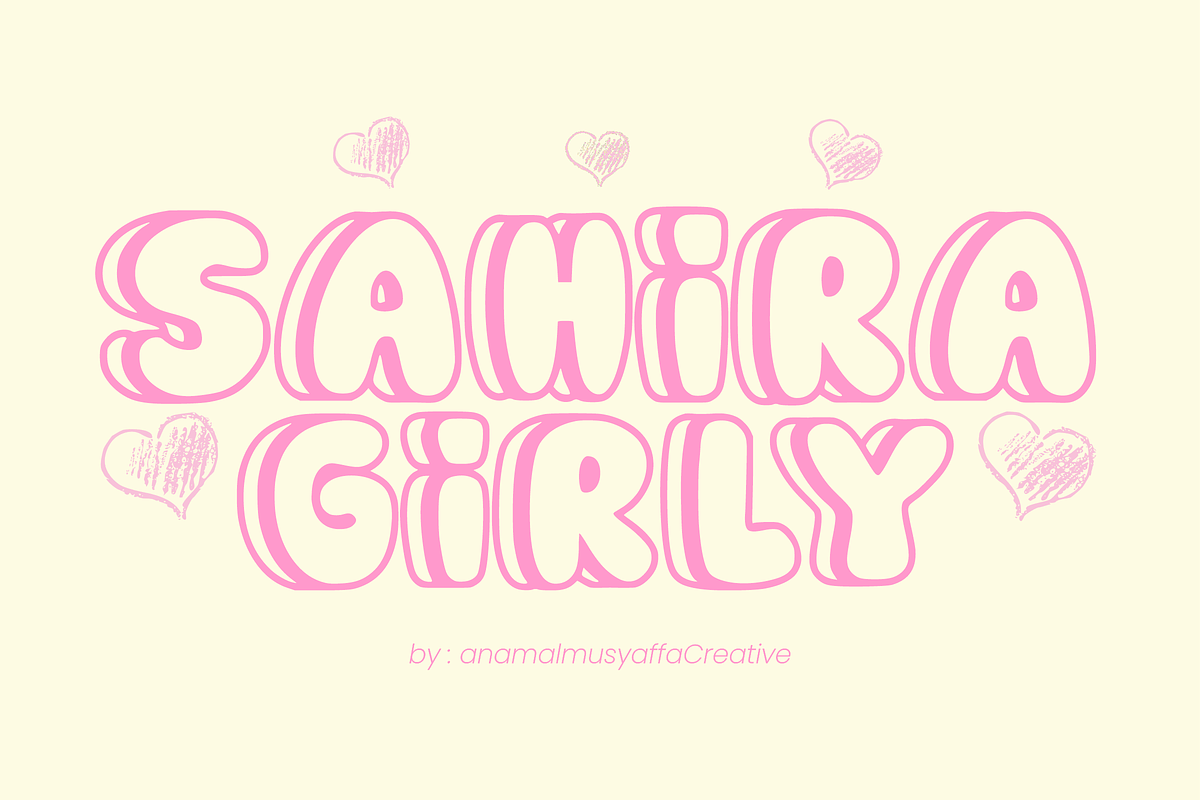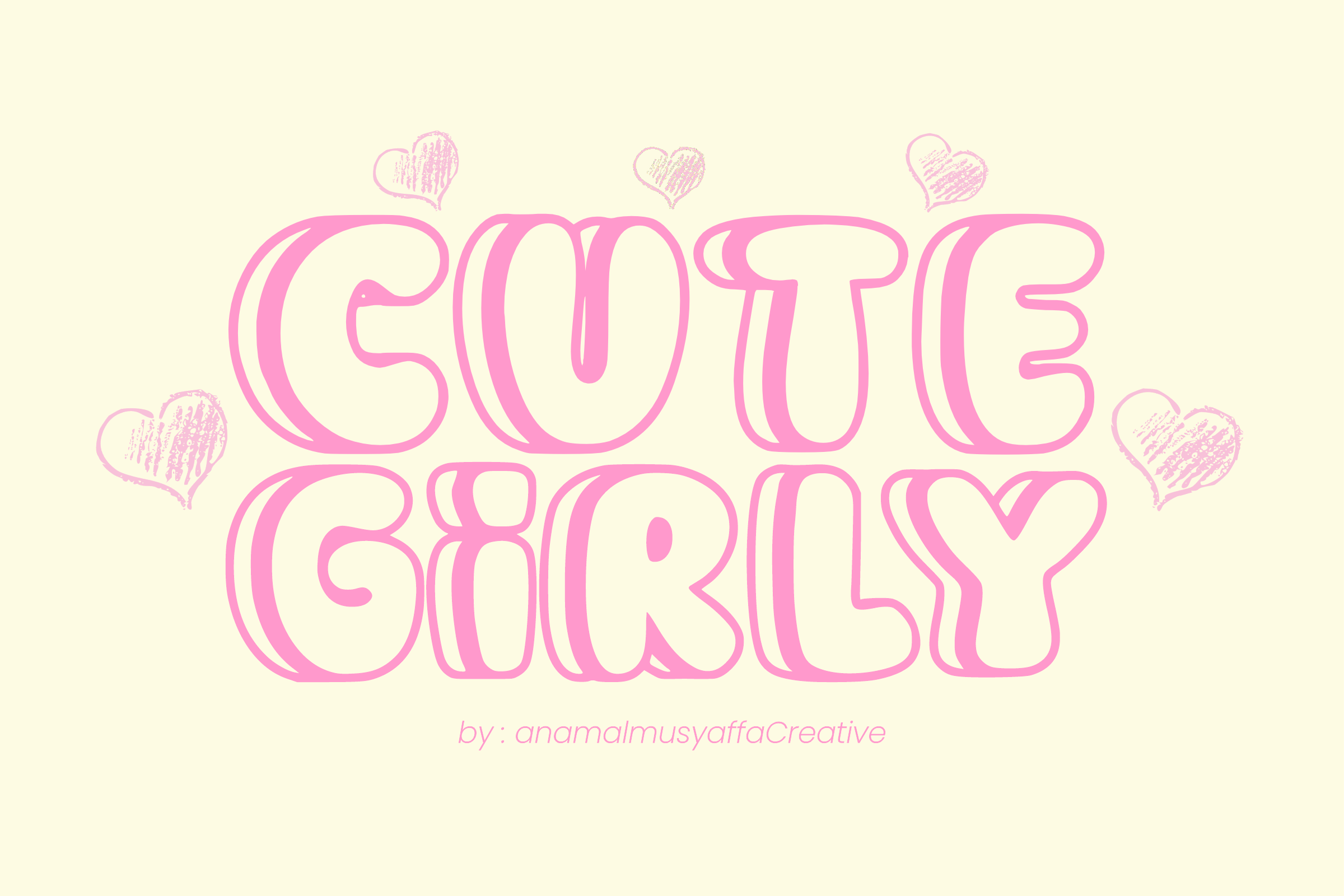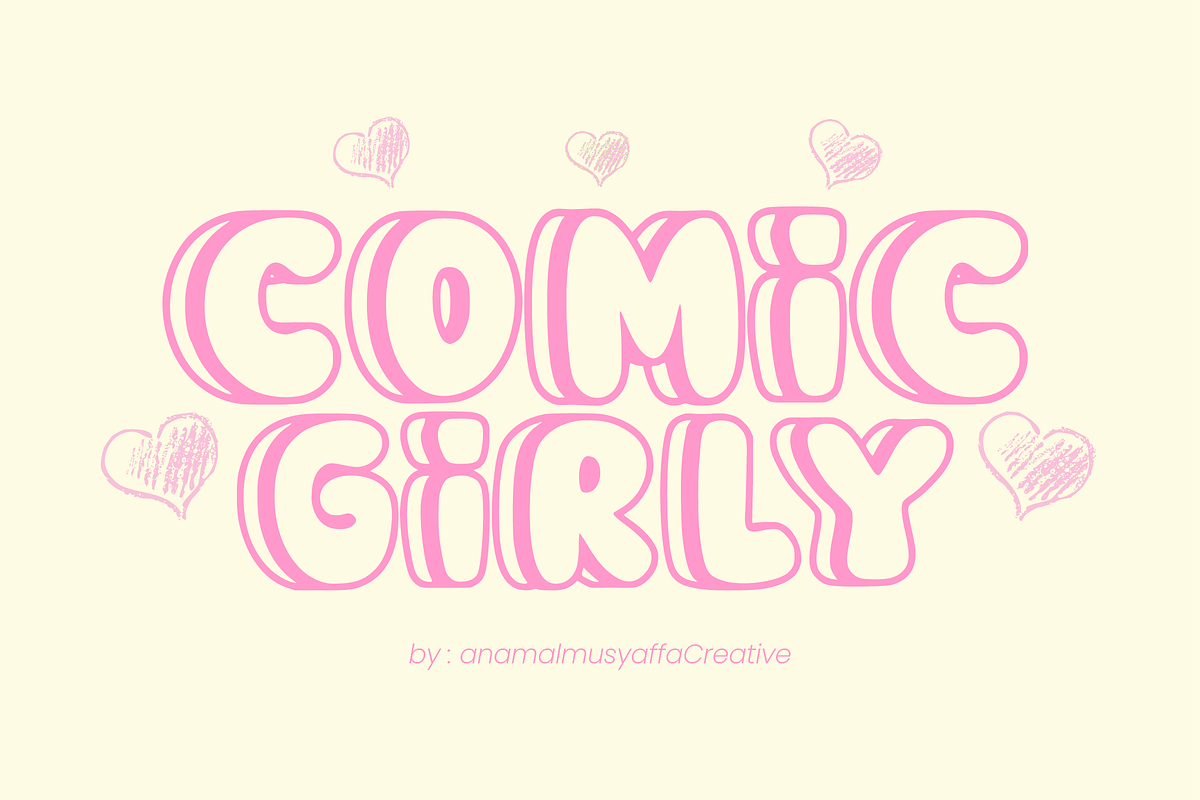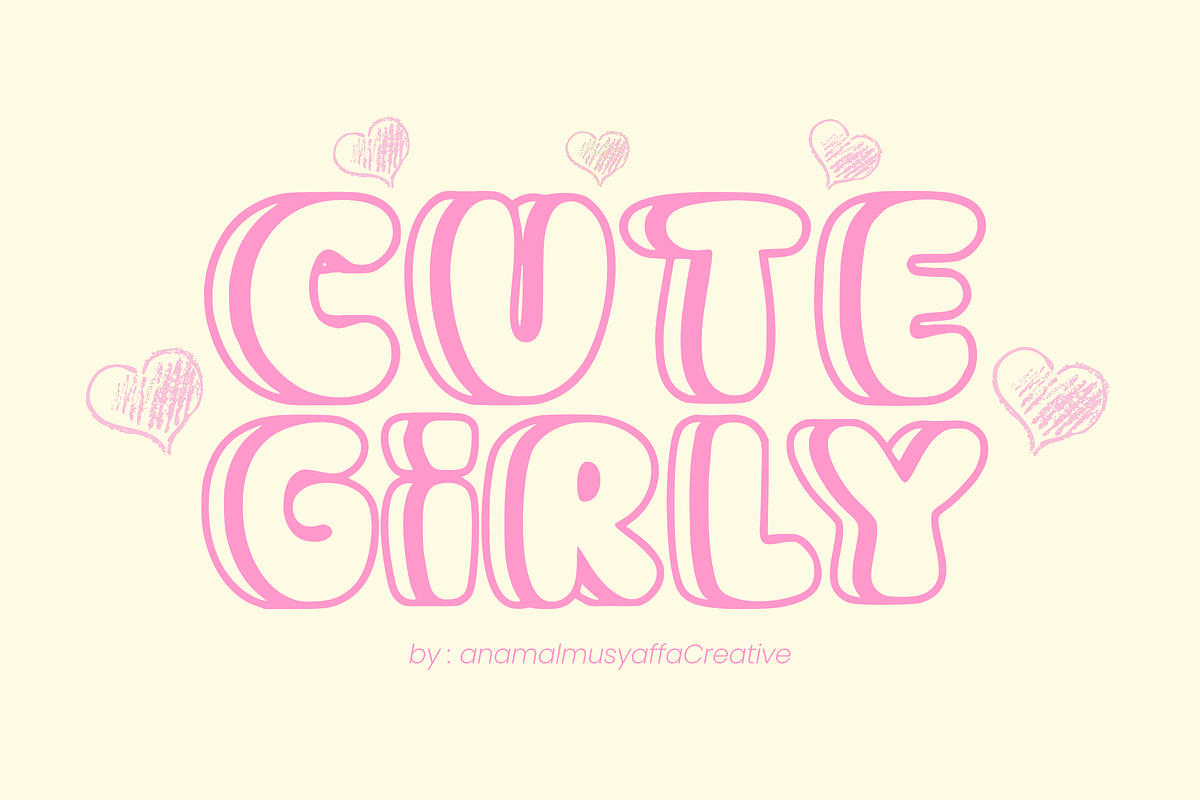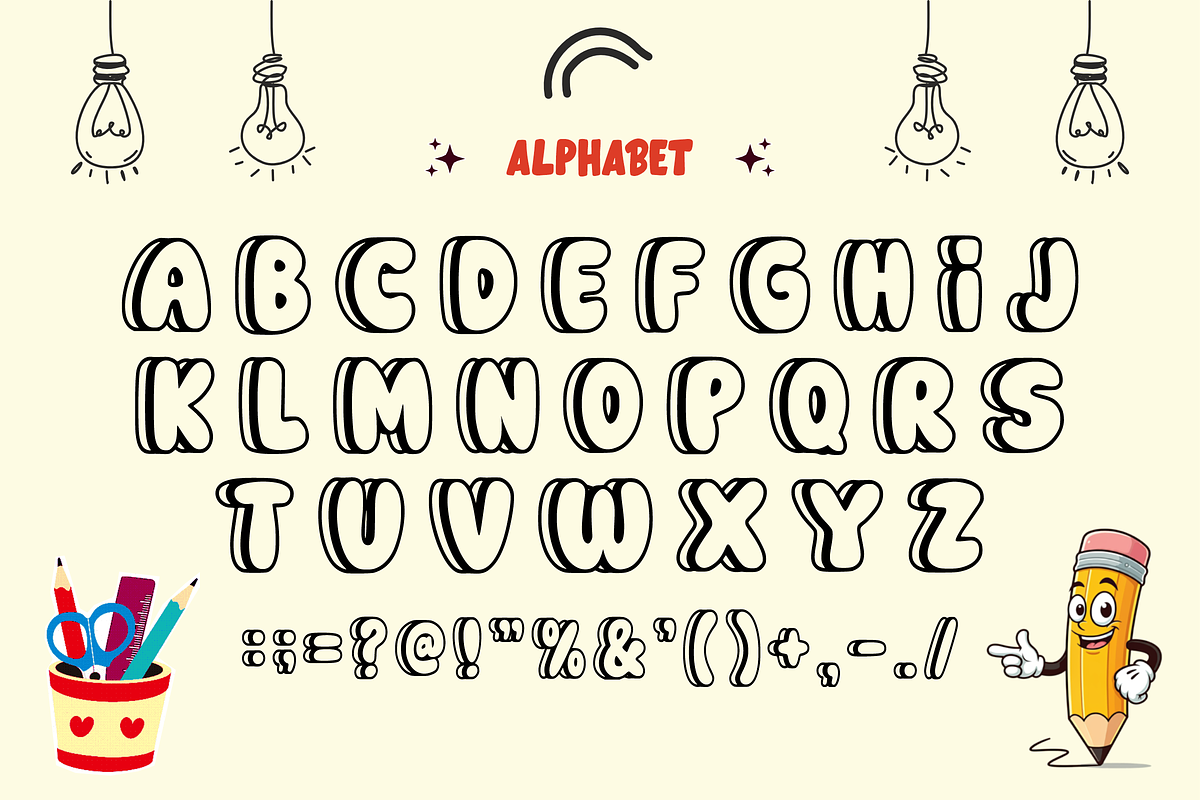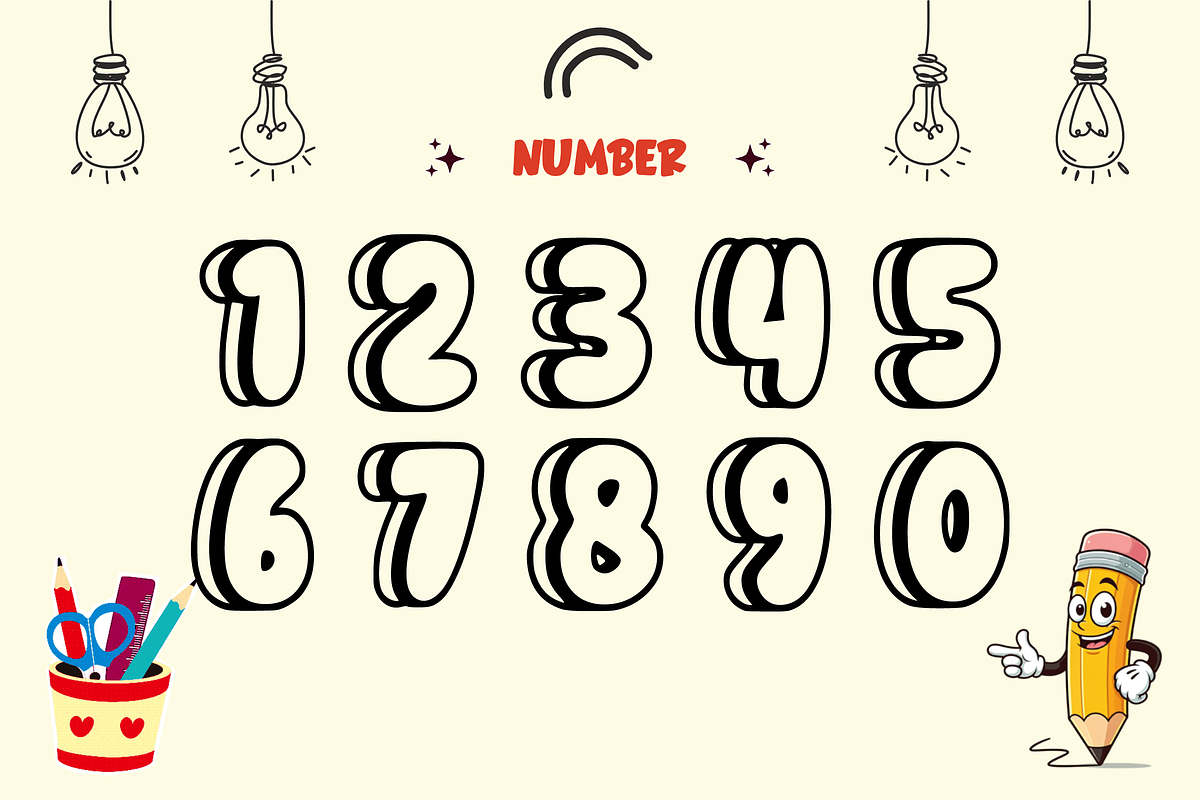
Cute Girly - Display Font
💖 Cute Girly: Sweet & Groovy Display Font ✨ Embrace the charm with Cute Girly! This adorable display font features soft, ultra-chunky curves and a stylish retro-inline detail that gives every letter a bouncy, high-end "pop." It is the ultimate choice for designs that need a touch of sweetness, femininity, and playful elegance.
With its bold silhouette and trendy aesthetic, Cute Girly is perfect for creating eye-catching headlines that look both modern and whimsically nostalgic.
🔠Uppercase Alphabet – Bold, bubbly, and beautifully curvy.
🔢 Matching Numeric Set – Stylish numbers for dates and special ages.
🎀 Simple Symbols – Essential punctuation for flawless designs.
🌸 Girly Branding & Logo Design
🎂 Birthday Invitations & Greeting Cards
👕 Fashion Apparel & Tote Bag Prints
💄 Beauty & Cosmetic Packaging
📱 Instagram Quotes & TikTok Graphics